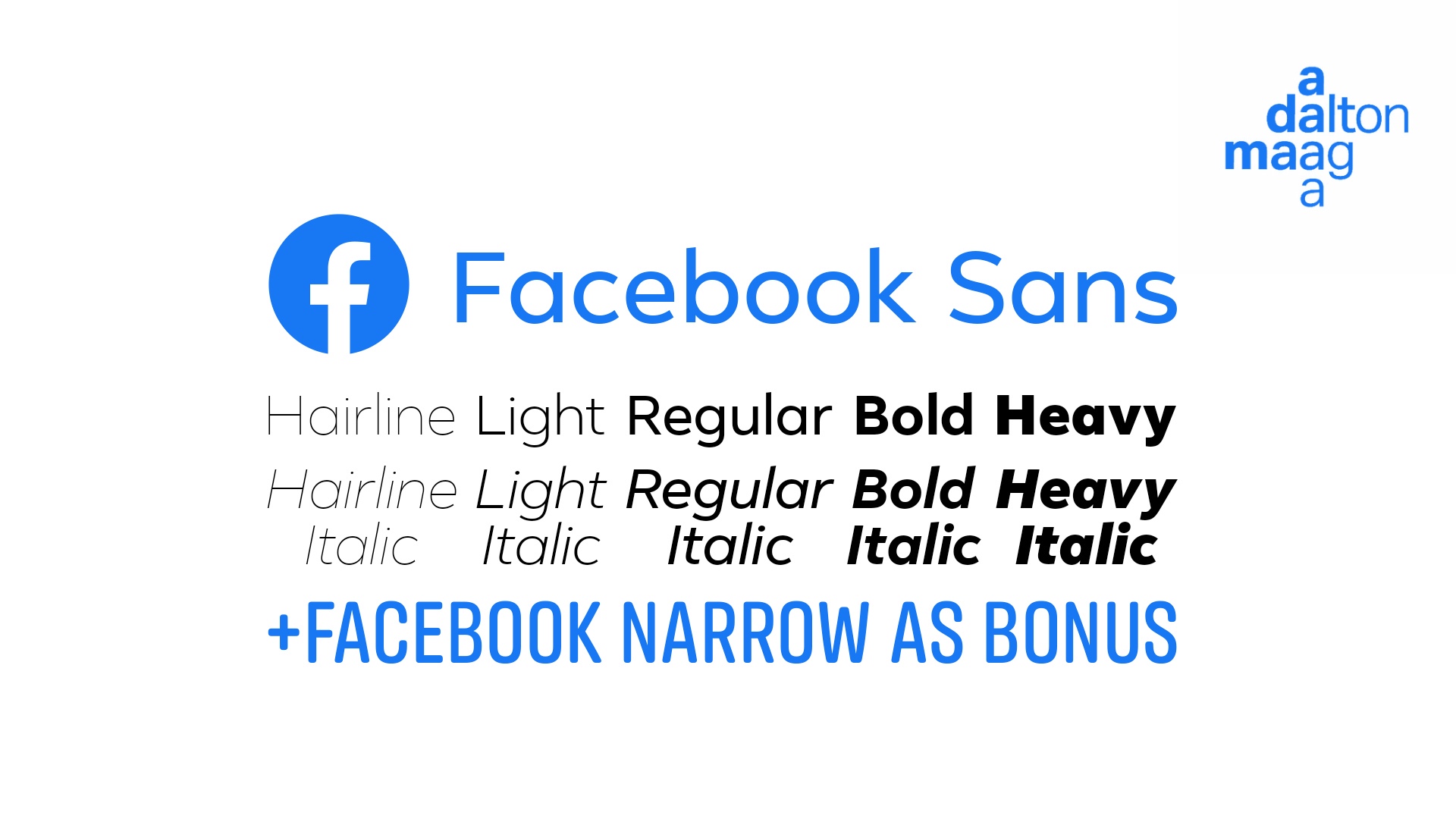
Facebook Sans Font
This modern typeface is perfect for social media brands, tech companies, digital platforms, app interfaces, technology startups, social networking sites, communication tools, web applications, and contemporary digital design projects.
What makes this font exciting is its social connectivity combined with digital sophistication, offering designers a contemporary typeface that captures the essence of modern communication while delivering platform-ready functionality and social media authenticity.
The Facebook Sans font family includes thin, light, regular, medium, bold, and black variations, providing complete digital design solutions for creating connected social visual identities.
Facebook Sans Font features carefully engineered social styling with authentic digital character that conveys genuine technology expertise. Each character has been optimized for screen readability and social media applications, with clean proportions and modern elements that enhance the connected aesthetic. The font's digital qualities make it particularly effective for social platforms and communication applications.
Professional designers choose Facebook Sans Font for projects requiring authentic digital credibility and social atmosphere. Its technology heritage makes it exceptionally well-suited for social media companies, communication platforms, and connected lifestyle brands. The font's versatile digital variations allow designers to control the social intensity, from subtle platform elegance to full connectivity celebration.
The complete Facebook Sans Font package offers extensive digital ornaments and social decorative elements that enhance the connected aesthetic. Advanced platform features allow designers to create complex social effects with multiple communication-inspired options. This comprehensive digital toolkit ensures designers have everything needed to create authentic social communications that celebrate the power of digital connectivity and modern social interaction.